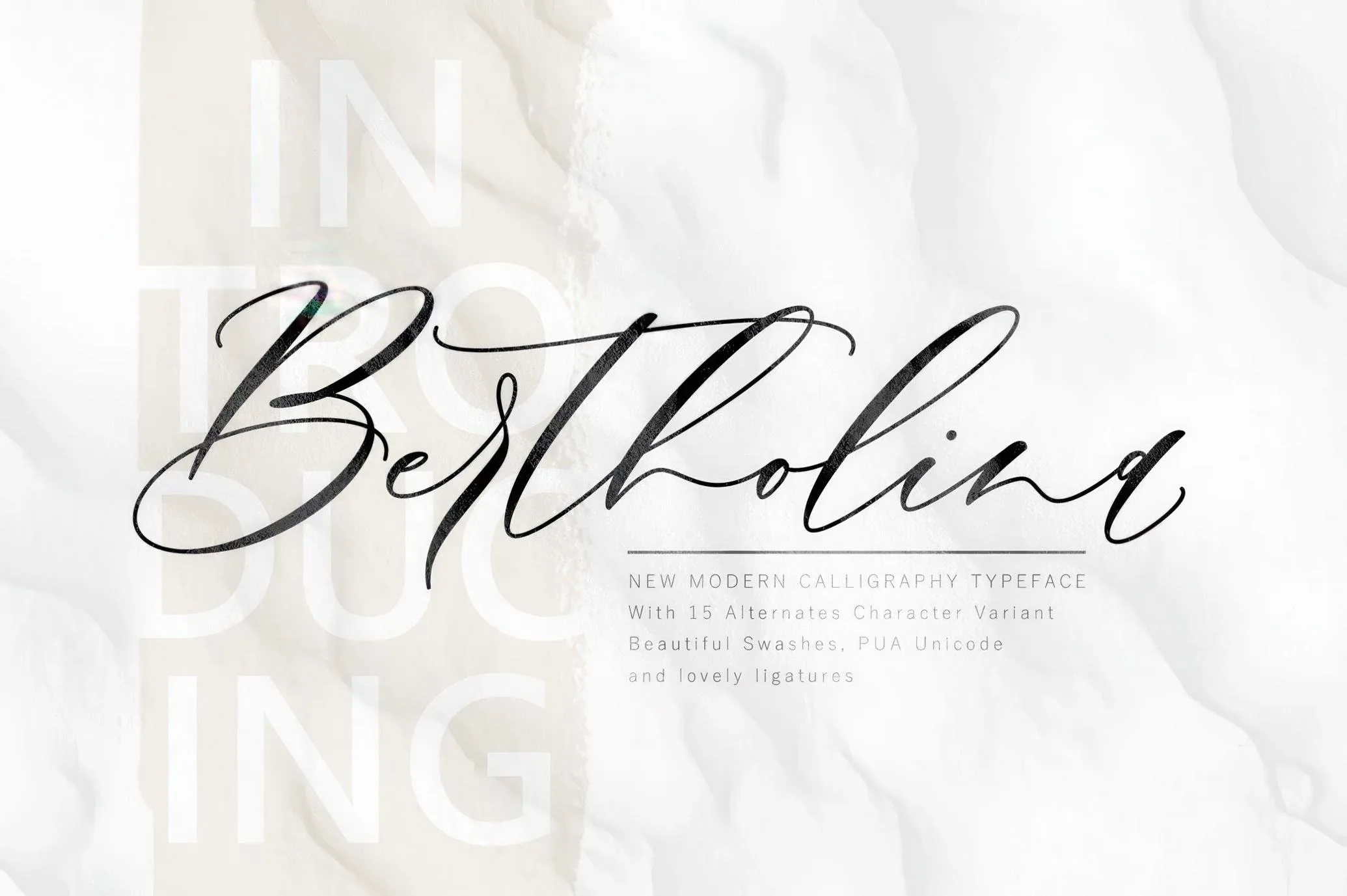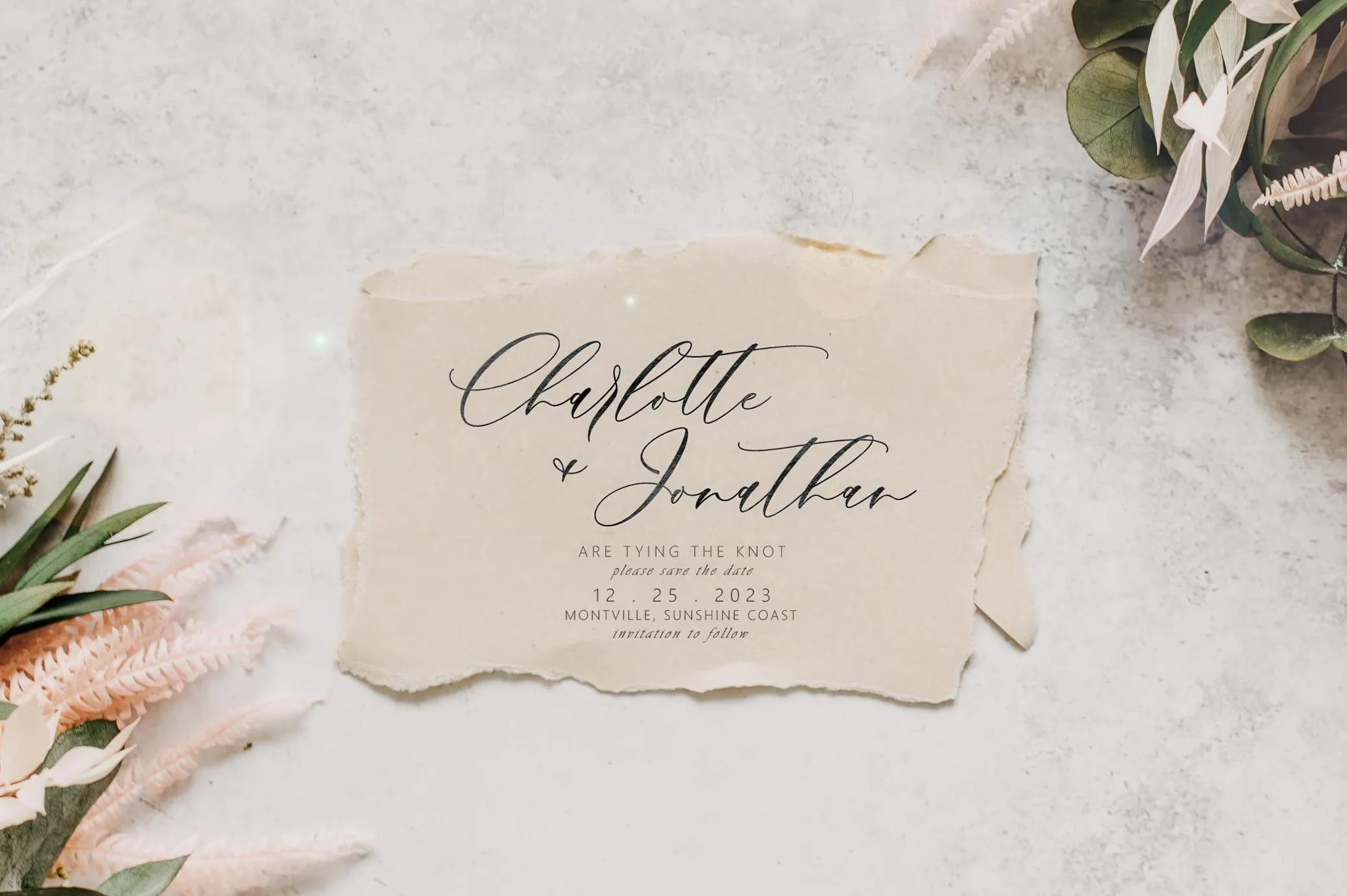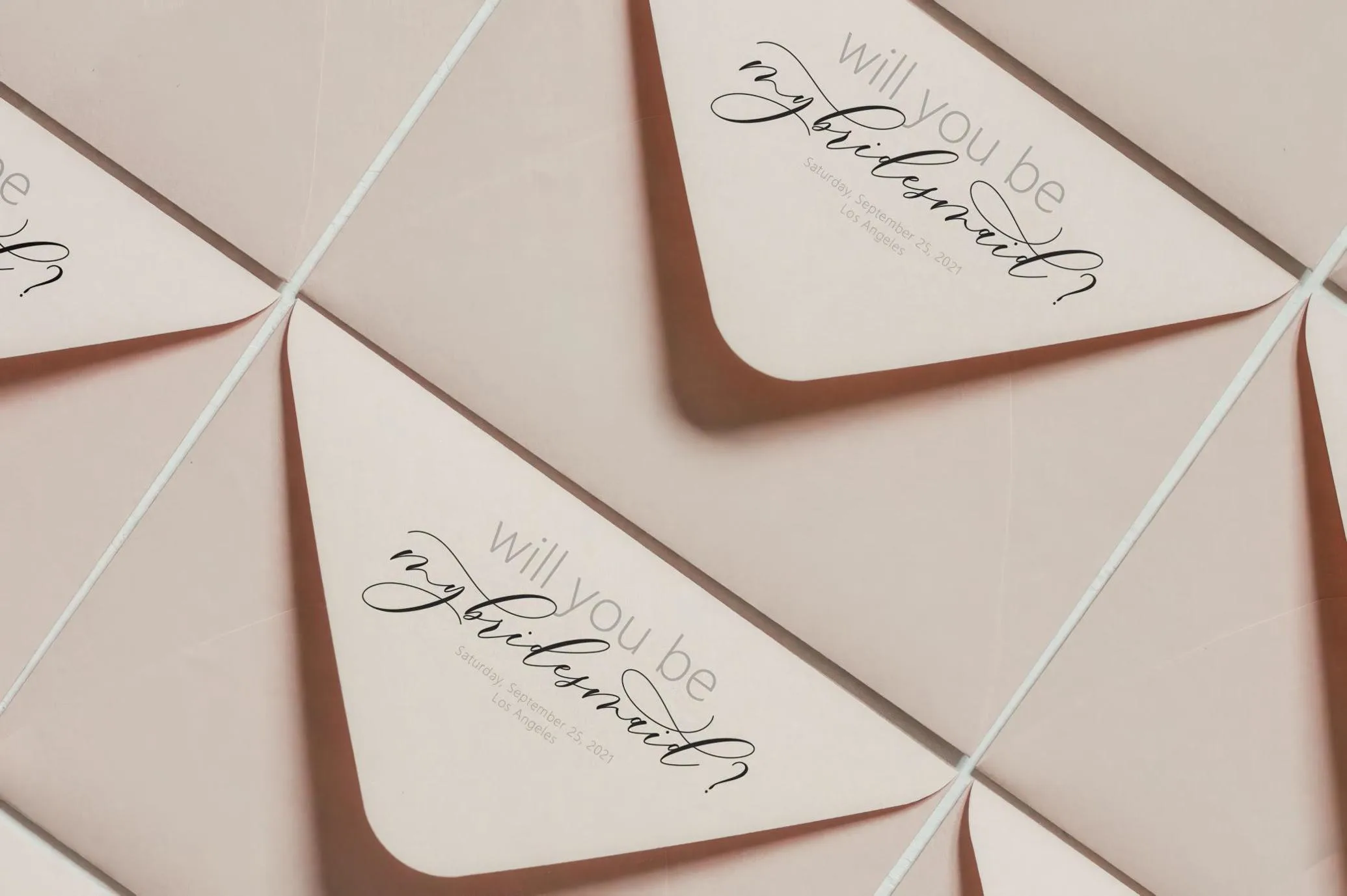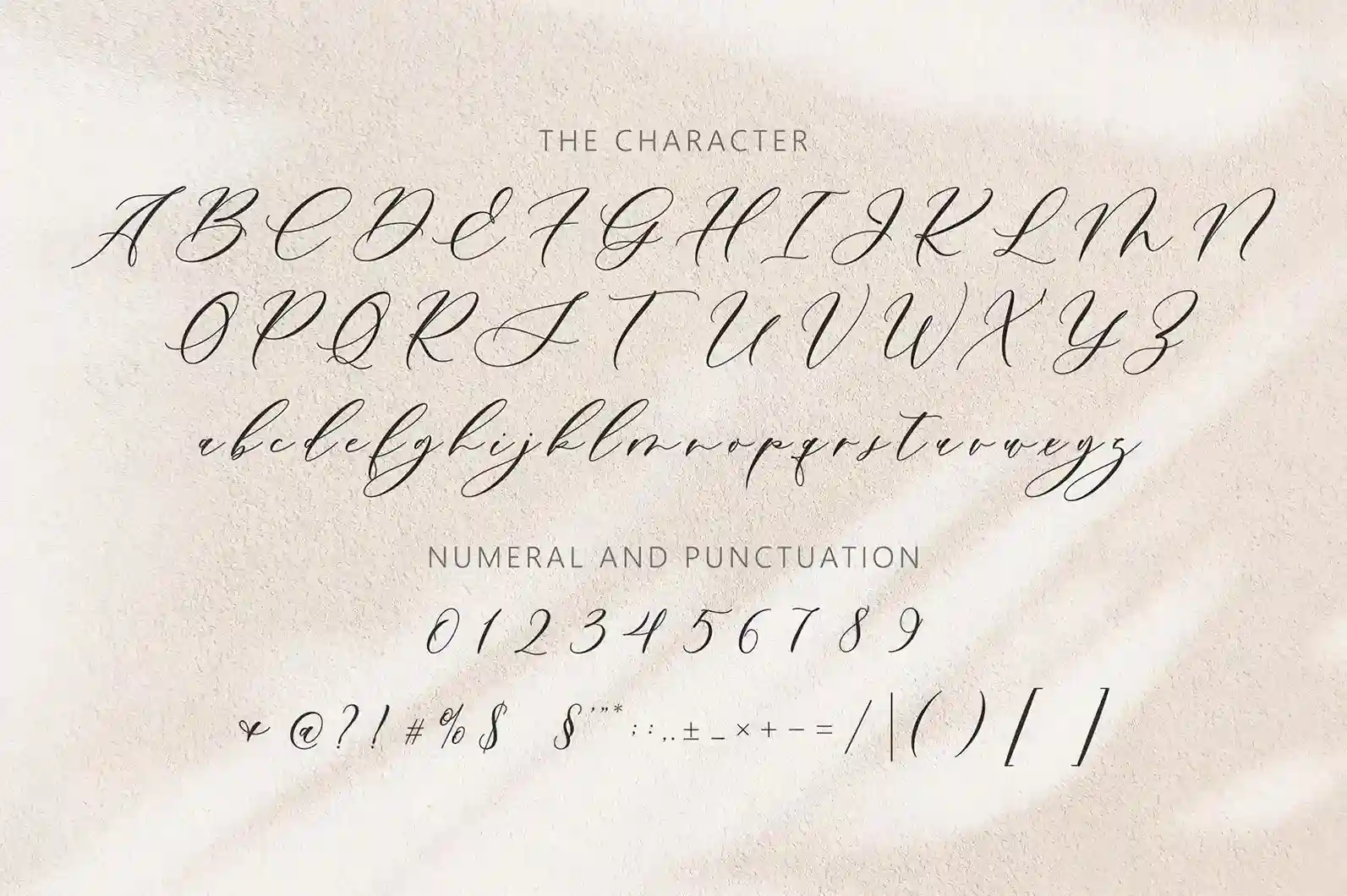
Meet Bertholina Script, a timeless, flowing script font that blends calligraphic charm with modern elegance. Whether you’re designing luxury brand packaging or heartfelt invitations, Bertholina adds a graceful handwritten touch that speaks volumes. This font isn’t just a typeface—it’s a visual signature designed to elevate your creative work.
With 15 stylish alternates, elegant ligatures, and sweeping swashes, Bertholina gives you the flexibility to style your words with character and motion. Each letterform is crafted to capture a natural ink-flow, making it ideal for use in branding, wedding stationery, social media posts, packaging design, and quote graphics.
15 alternate characters to add variety to your text
Beautiful swashes & ligatures for extra elegance
Where to Use Bertholina:
Bertholina is a go-to script for designers working on:
Premium brand identities
Packaging for cosmetics, candles, or handmade goods
Wedding invitation suites
Greeting cards and personalized messages
Logos for boutiques, lifestyle blogs, or beauty brands
Instagram posts and digital quotes
Printables, such as planner headers or wall art
If your goal is to add a poetic, soft, and high-end flair to your typography, Bertholina has you covered. It’s refined, readable, and ridiculously easy to use across platforms. Whether you’re building a brand or designing for fun, this script will help your words look as good as they sound.